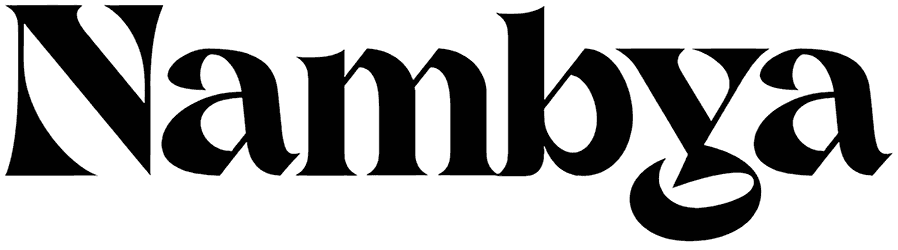
Nambya Font
If you want to give your design a special form and at the same time keep it classic, this will be the right choice. As a fashion font, this option has unique and professional lettering that can be so catchy. Nambya font doesn’t cover numerals and punctuation marks, but even without them, it will be an ace choice for many designs, from magazines to branding.